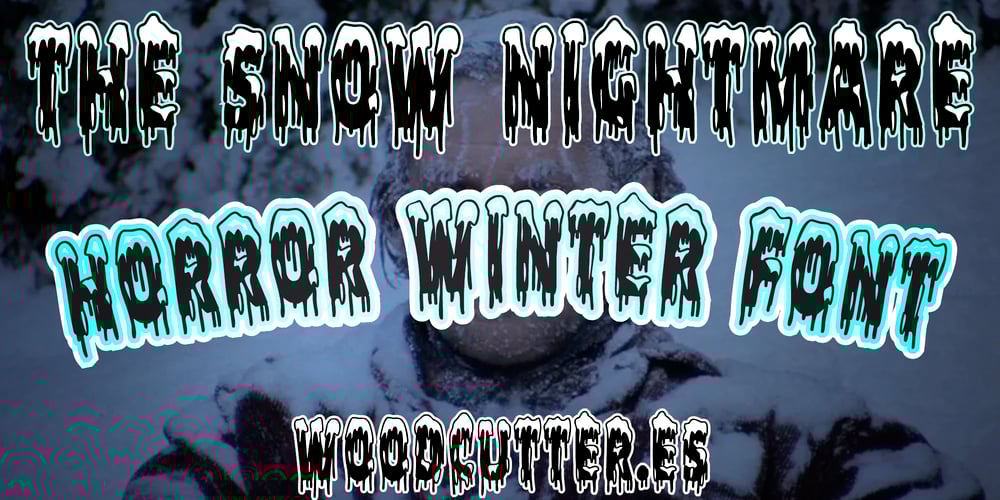
The Snow Nightmare Font Family was designed by Jordi Manero and published by Woodcutter. The Snow Nightmare contains 1 styles and family package options. “The Snow Nightmare” is an uppercase typeface that combines the chill of winter with classic horror. Each letter is adorned with accumulated snow and features dripping blood that falls menacingly, creating a striking contrast between the icy and the macabre. Its aesthetic conveys a chilling winter nightmare, making it perfect for horror projects, movie posters, video games, or dark-themed events. This font stands out for its unique design, blending natural elements with a terrifying touch that grabs attention and evokes frozen fear in any composition.